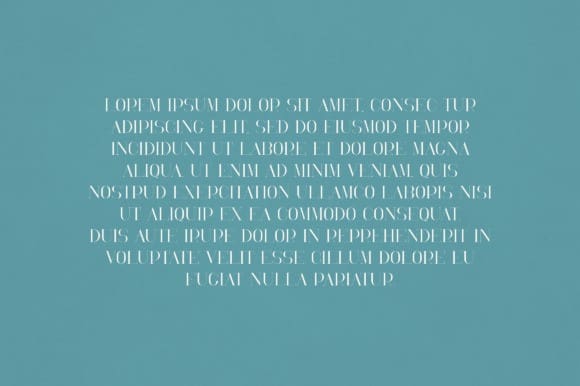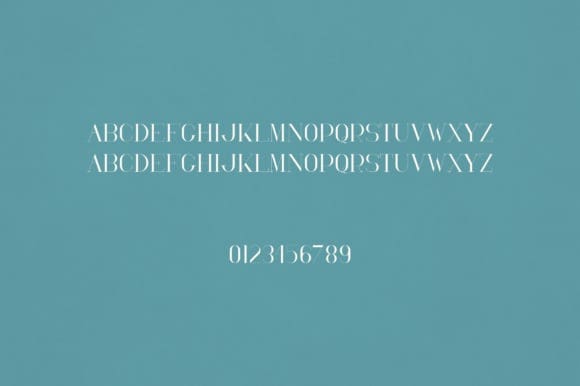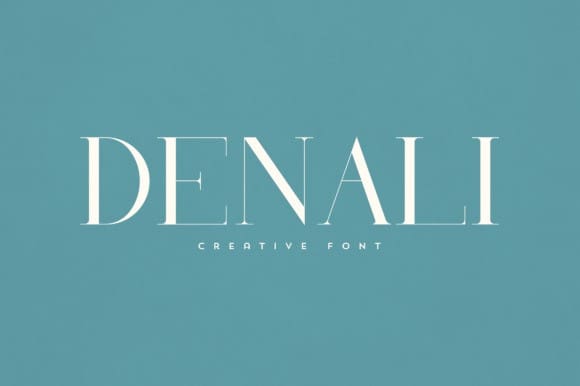
Denali Font
Denali Font is an elegant and versatile serif font that will make your typography truly unique! It will enchant every logo, branding, headline, or plain text!